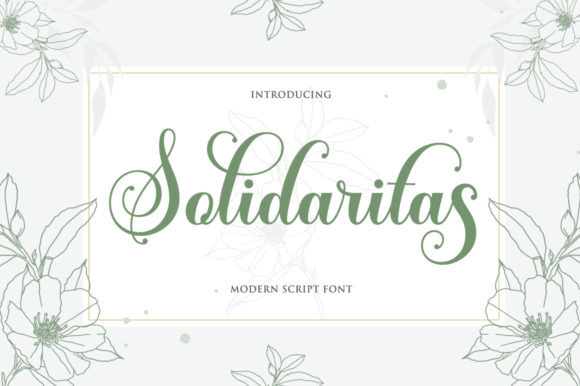
Unleash the Enchantment of Solidaritas: A Font That Symbolizes Love, Joy, and Romance
In a world where ordinary fonts fail to ignite the spark of creativity, Solidaritas emerges as a beacon of inspiration, a font crafted to evoke the essence of love, joy, and romance. Its delicate strokes, reminiscent of a handwritten letter penned by a passionate heart, will transform your designs into captivating expressions of emotion.
With its graceful curves and elegant flourishes, Solidaritas is the perfect choice for those seeking a font that radiates warmth and charm. Its ability to effortlessly blend with various design concepts makes it a versatile tool for creating stunning wedding invitations, heartfelt greeting cards, enchanting posters, and eye-catching social media graphics.
Experience the Joy of Effortless Creativity:
Using Solidaritas is like embarking on a creative journey where your imagination knows no bounds. Its user-friendly PUA encoding allows for seamless access to a treasure trove of glyphs and swashes, empowering you to add a touch of personalized elegance to your designs. Unleash your creativity and let the beauty of Solidaritas captivate your audience.
A Font That Touches the Heart:
Solidaritas possesses an uncanny ability to evoke emotions, stirring the heart with its romantic undertones. Its gentle flow and harmonious curves create a sense of intimacy and connection, making it an ideal choice for projects that aim to touch the soul. Whether it's a heartfelt love letter, an emotional blog post, or a captivating story, Solidaritas will elevate your words and leave a lasting impression.
The Perfect Accompaniment for Special Occasions:
If you seek a font that captures the essence of special occasions, look no further than Solidaritas. Its inherent charm and timeless beauty make it the ideal choice for wedding invitations, anniversary cards, and other celebratory designs. Let Solidaritas add a touch of magic to your most cherished moments, creating memories that will last a lifetime.